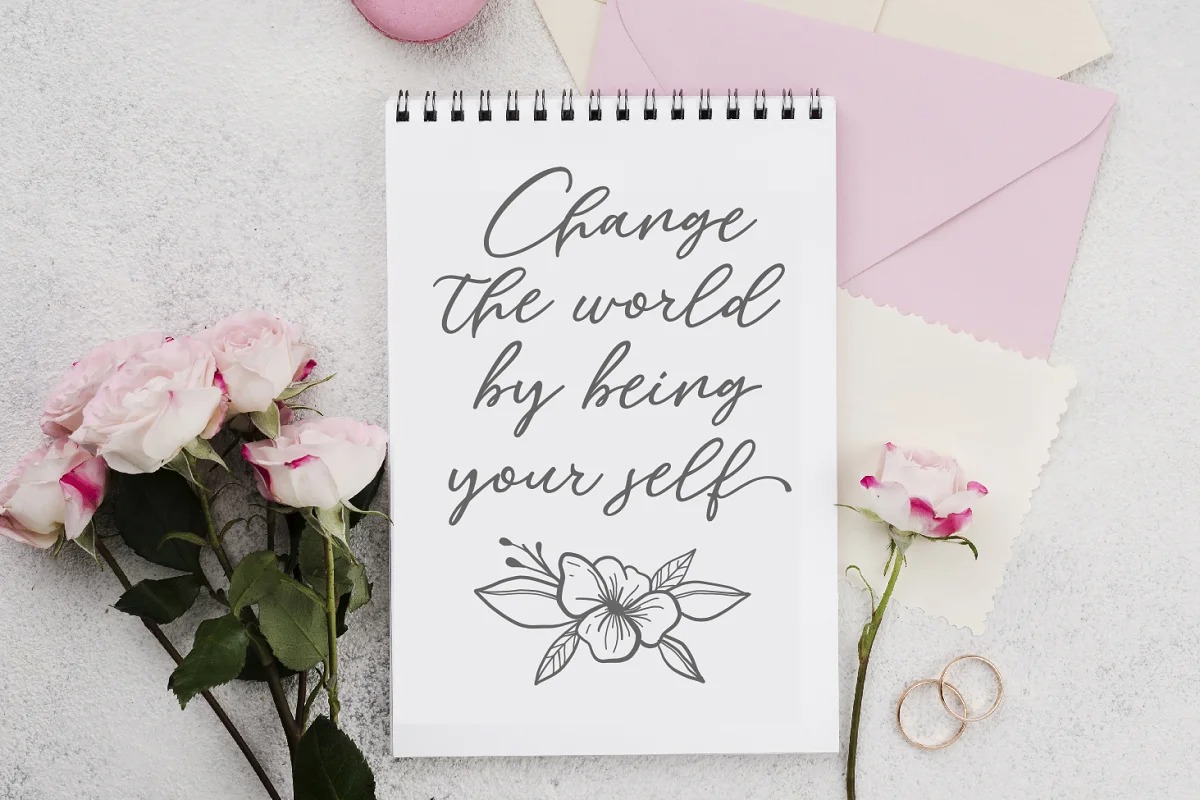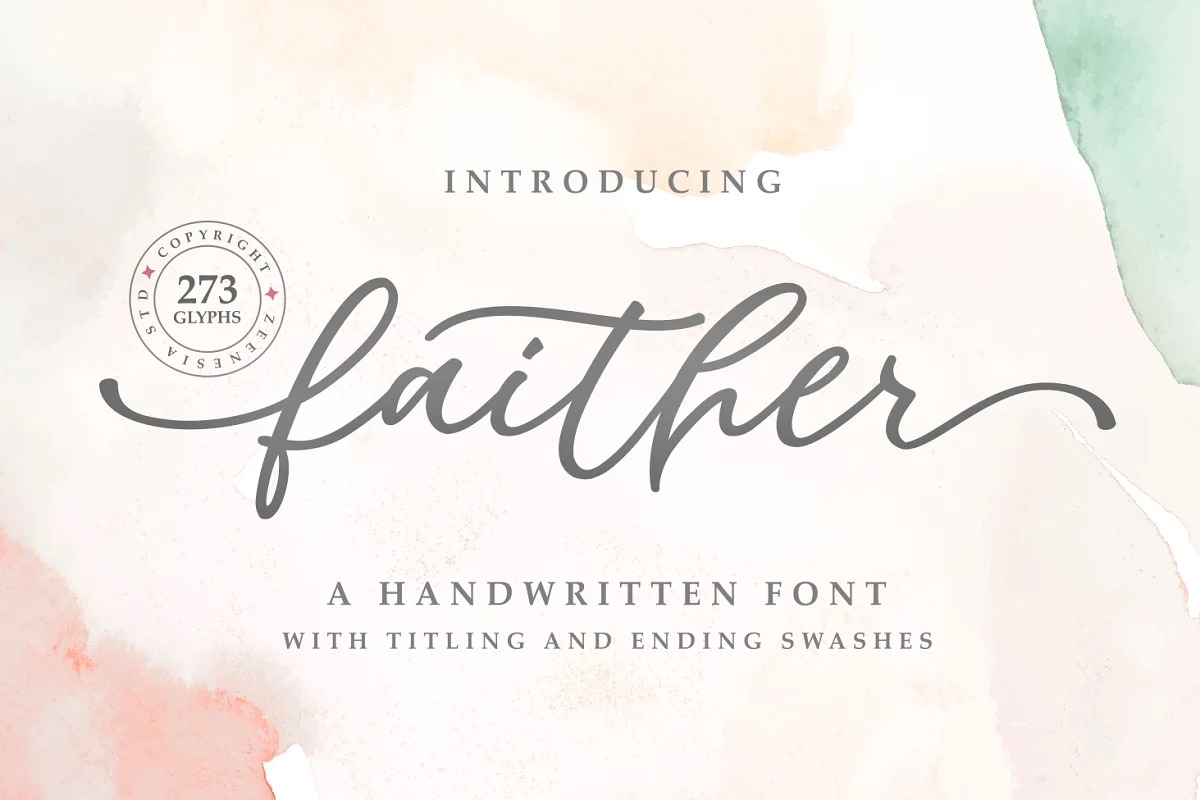
Faither Font
Faither Script Font
This is new script typeface created by zeenesia with natural movement make looks elegant, classy and beauty for your project. Fall for its ravishing style and use it to create gorgeous wedding invitations, beautiful stationary art, eye-catching social media posts, and much more! Natalie is PUA encoded which means you can access all glyphs and swashes with ease!